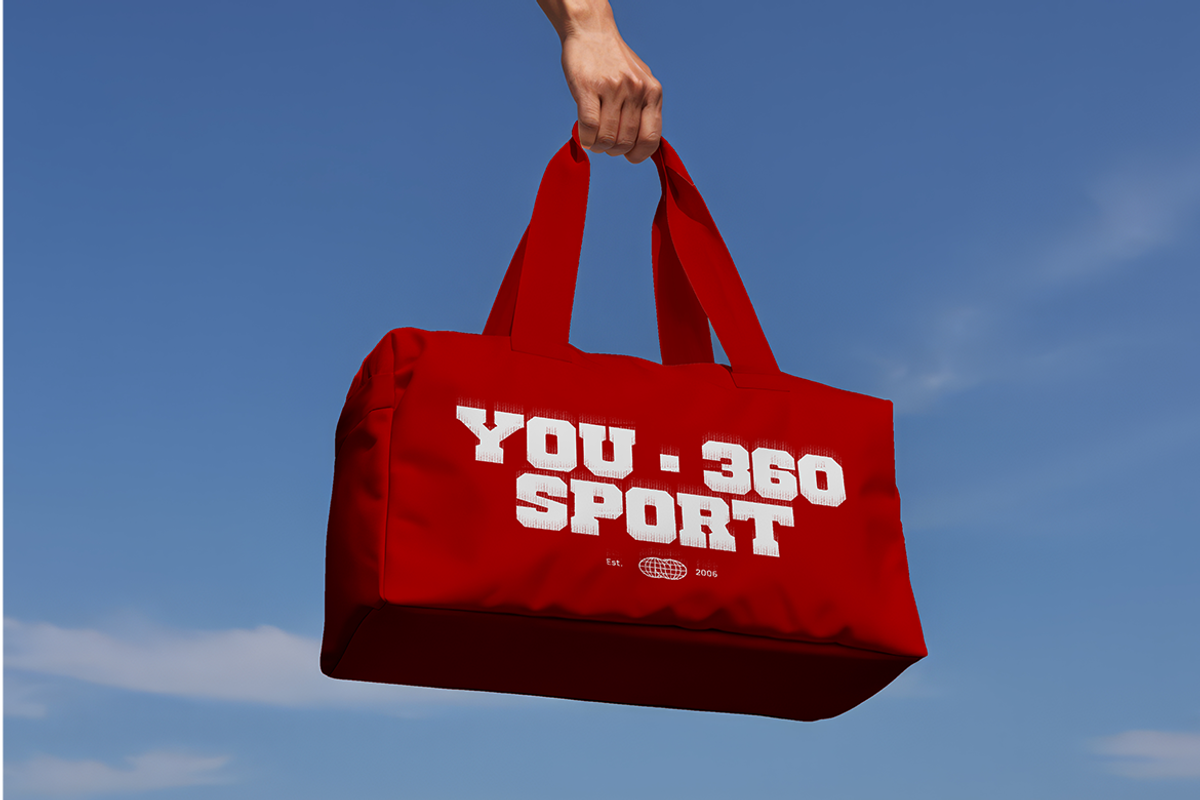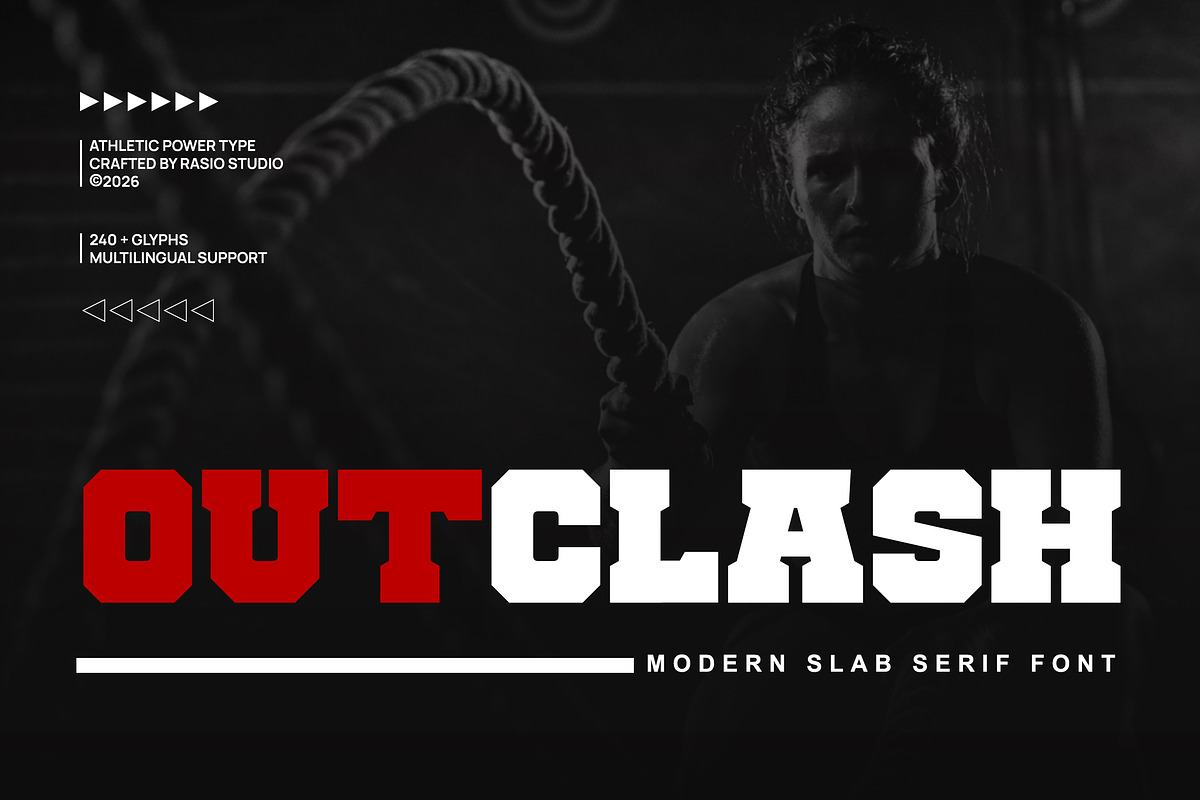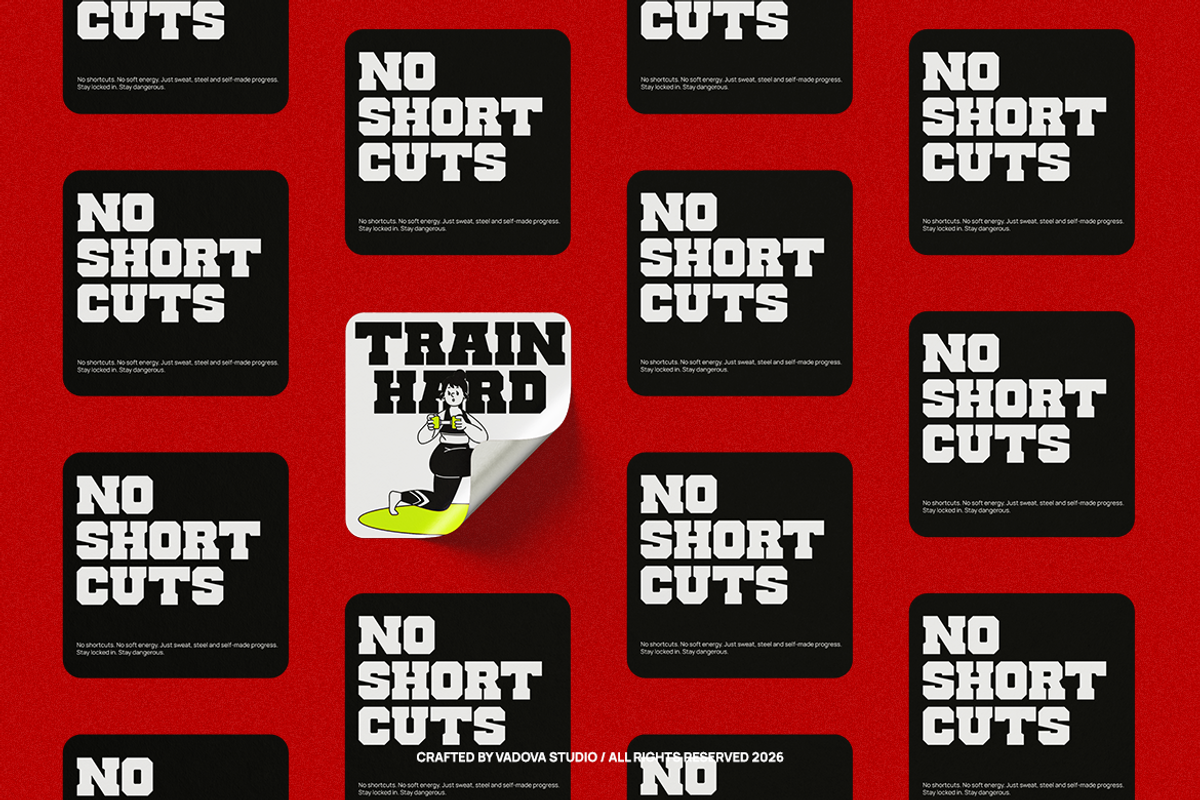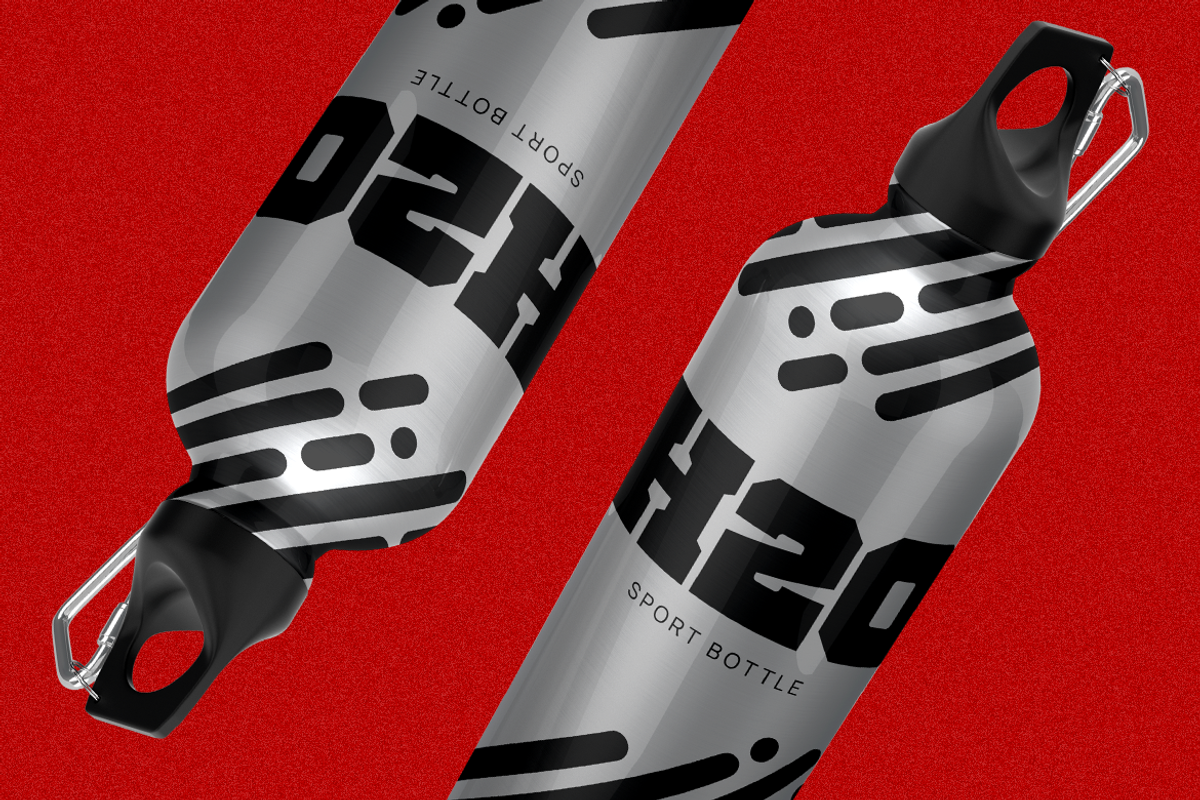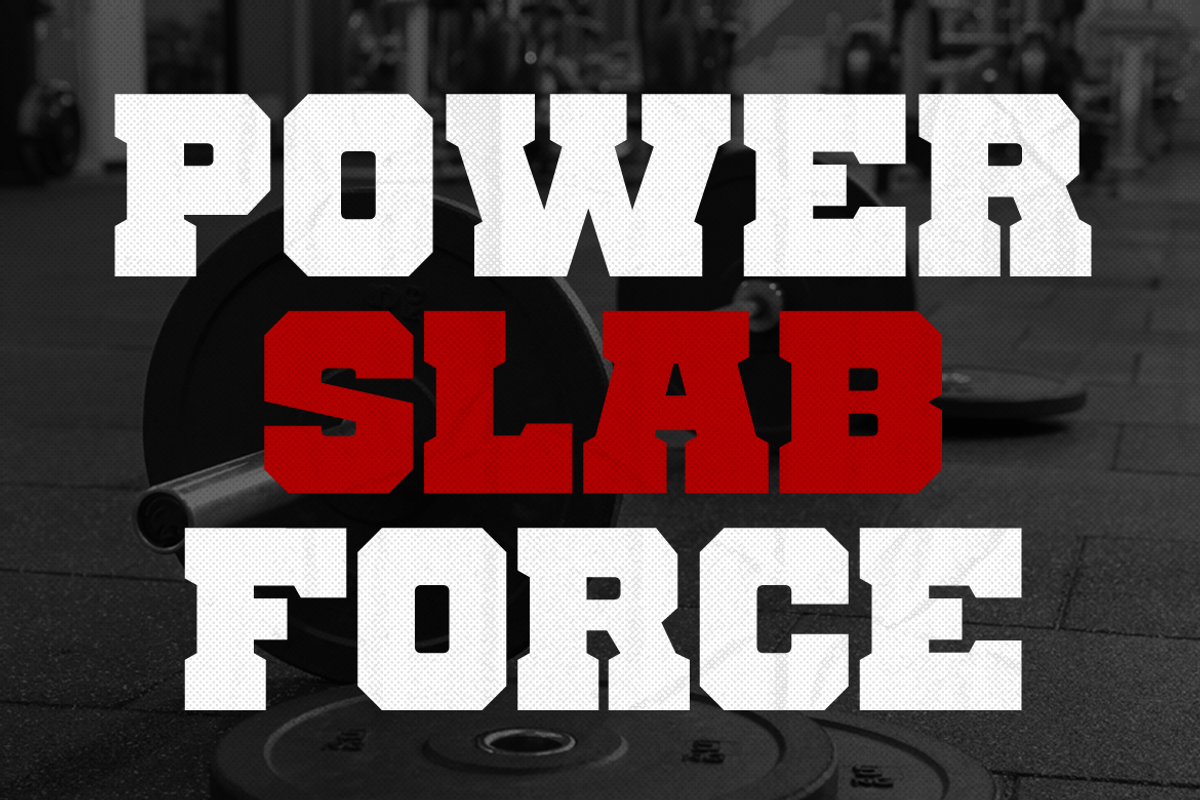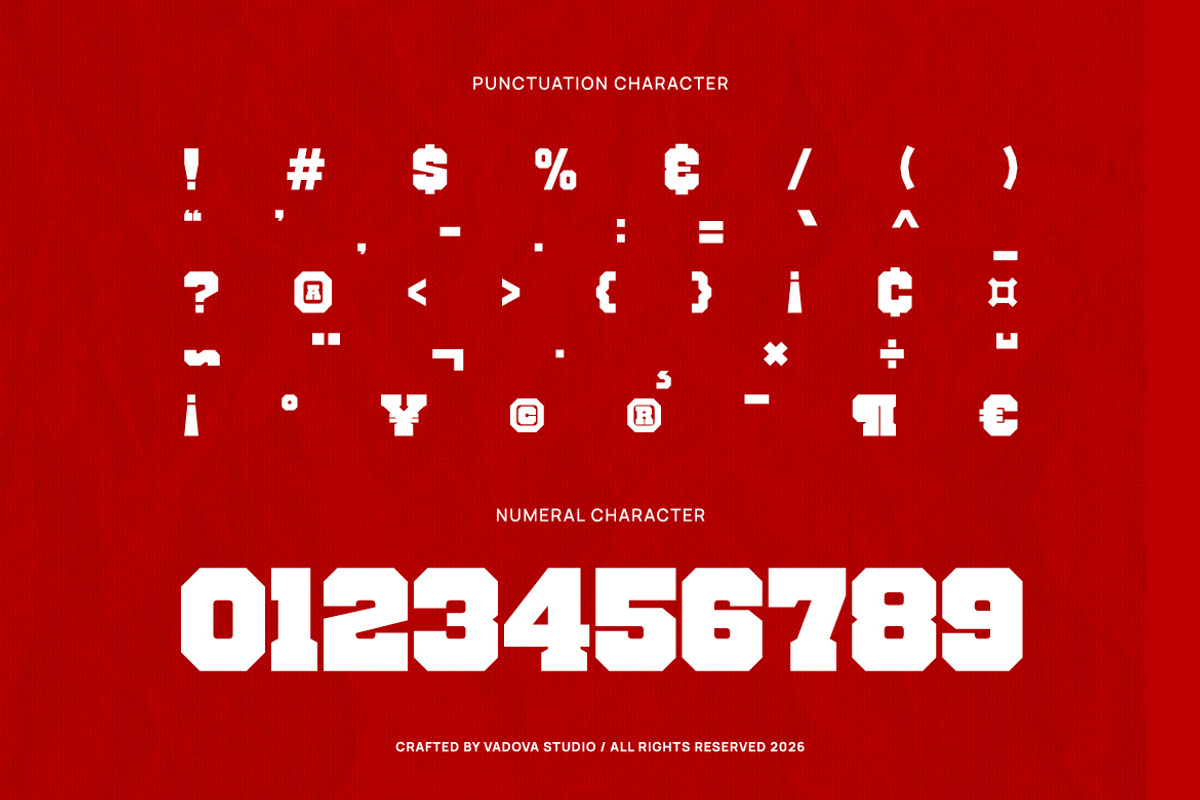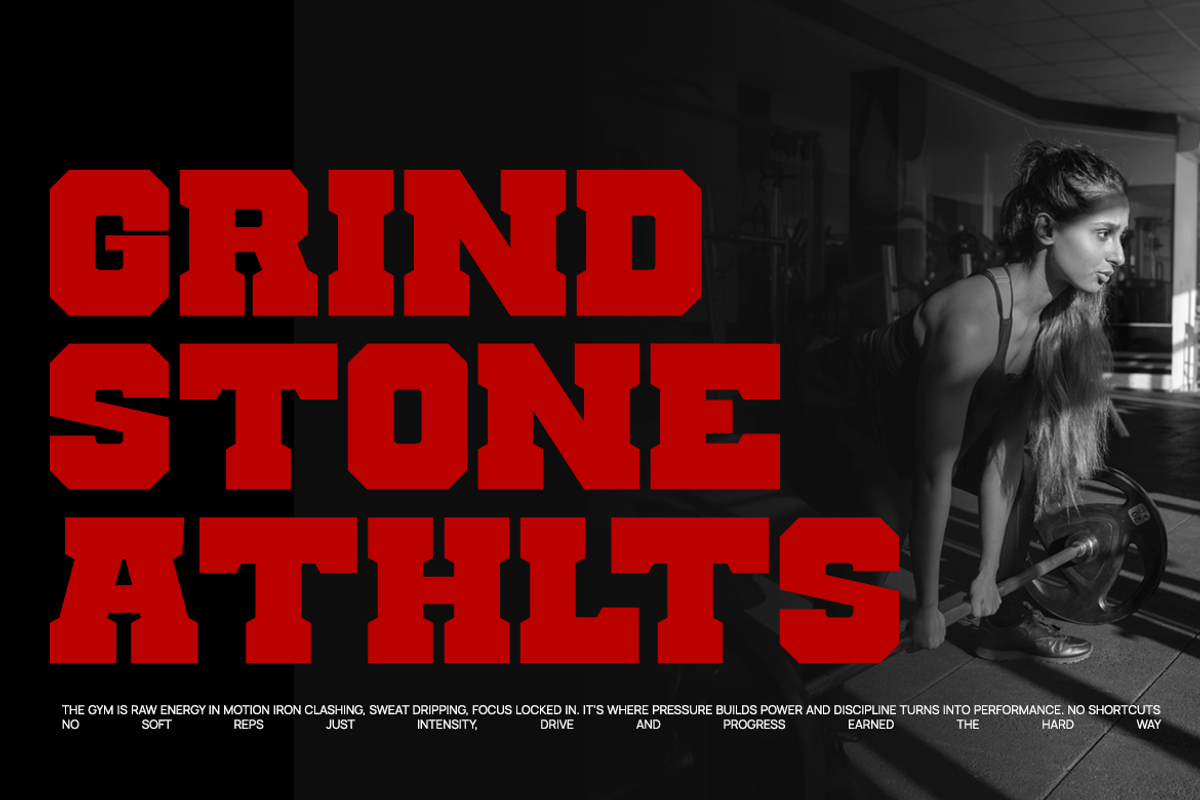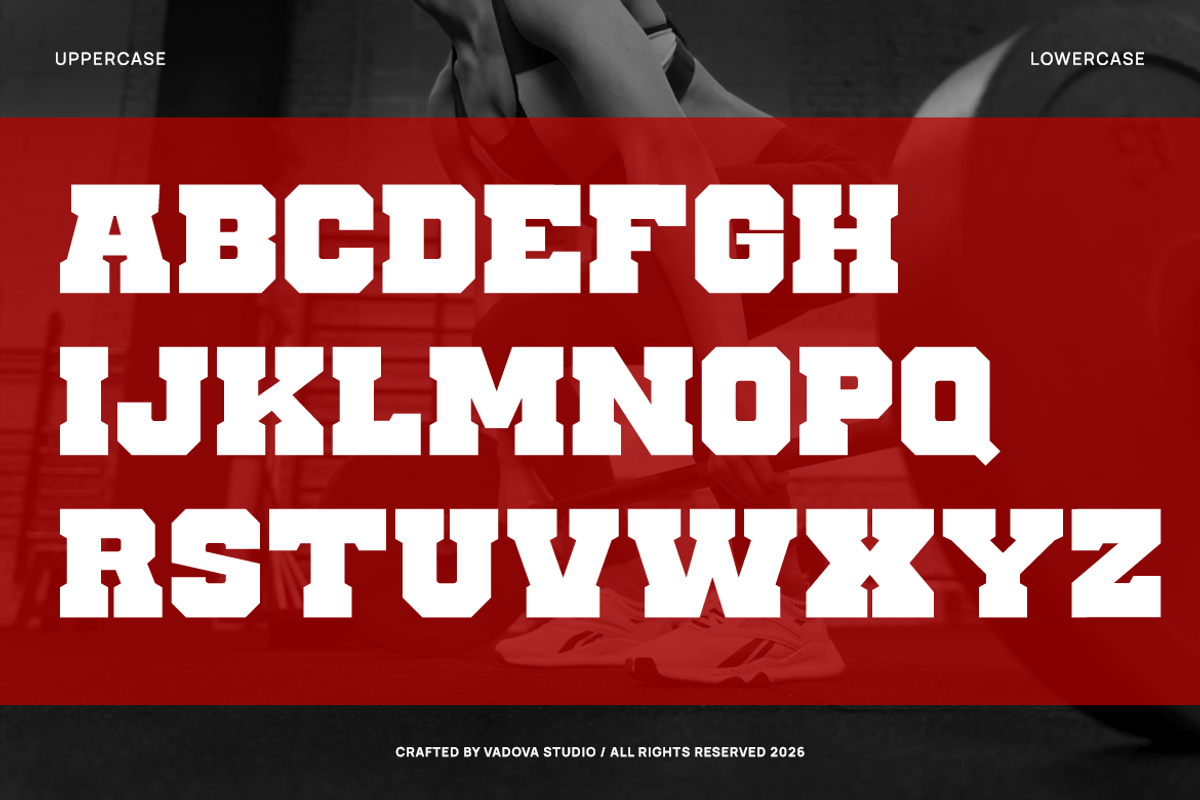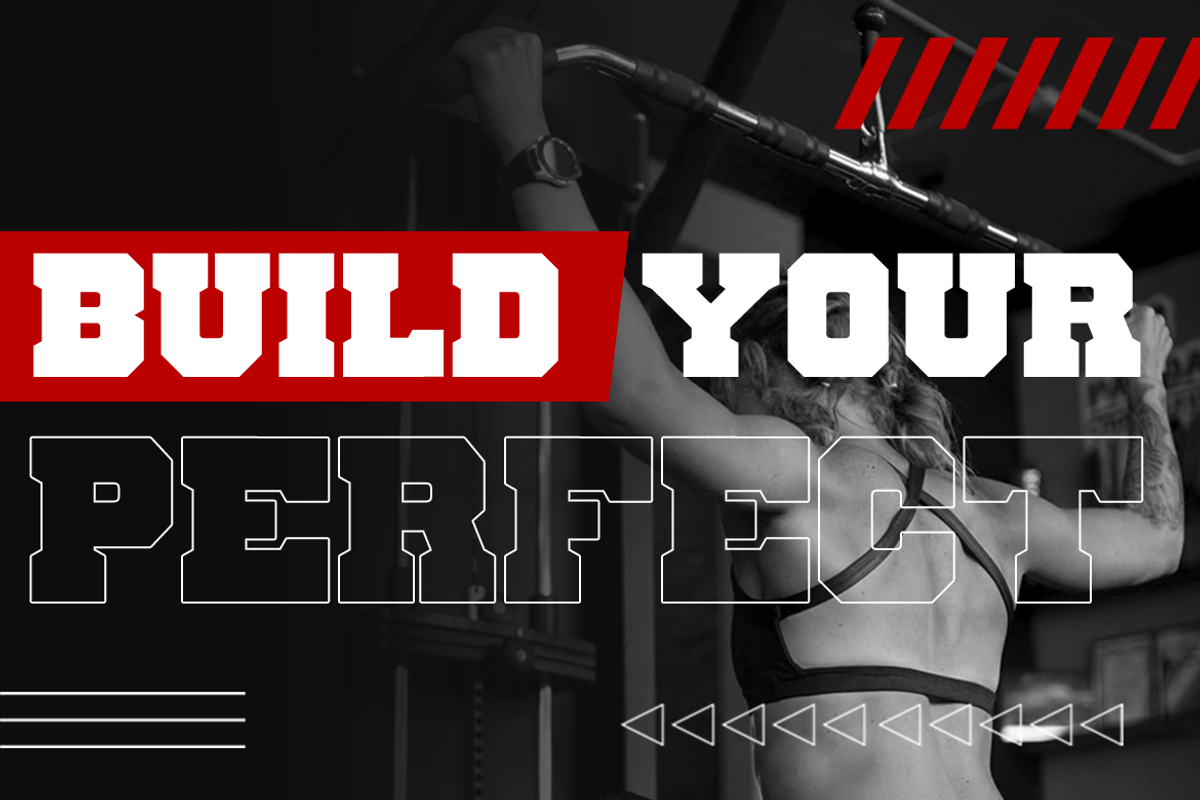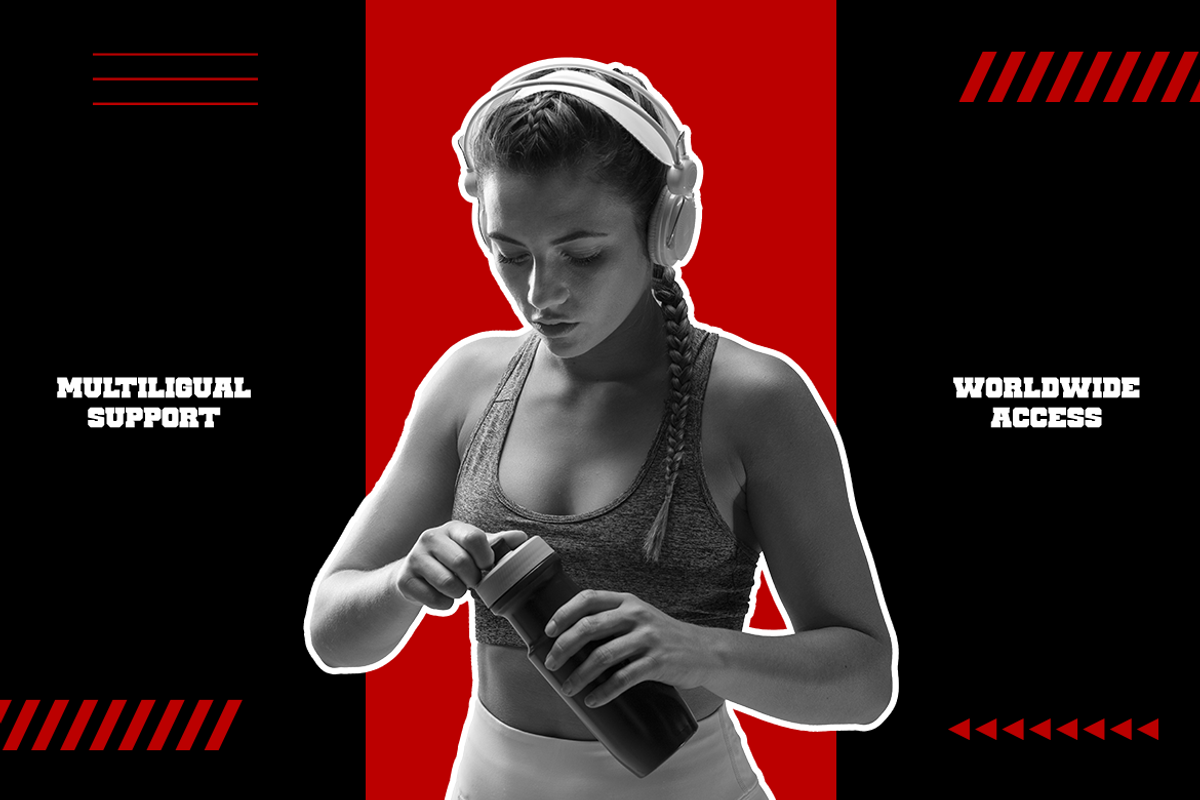
Outclash Modern Slab Serif Font
Outclash is a powerful modern slab serif font inspired by classic varsity and athletic lettering. Designed with bold, block-style letterforms and strong slab terminals, this typeface delivers maximum impact for sports branding and competitive visuals. The font features full uppercase and lowercase characters, 240+ glyphs, and multilingual support, ensuring versatility across global projects.
Outclash is highly relevant for sports and fitness branding that demands authority and bold presence. Ideal for gym promotions, team logos, athletic apparel, sports event posters, esports branding, and merchandise design. Its varsity-inspired slab structure makes it especially suitable for college themes, competitive campaigns, and high-impact marketing visuals that need to communicate strength and confidence.
- Bold athletic slab serif construction with strong varsity influence
- Solid block letterforms with sharp slab terminals for powerful presence
- High-impact geometric structure built for maximum headline visibility
- Thick, consistent stroke weight delivering strength and stability
- Structured proportions inspired by collegiate and sports typography
- Athletic brand identity systems that require strength and authority
- Sports team logos and varsity-style branding projects
- Gym and fitness promotional materials with bold impact
- College merchandise and apparel design (hoodies, jerseys, caps)
- Esports branding and competitive gaming visuals